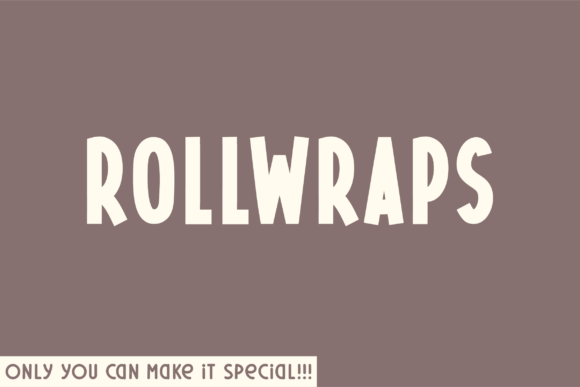
Embark on a typographic journey with Rollwraps, the captivating sans serif font that exudes individuality and charm. Crafted by the talented Hanna Bie, Rollwraps is not just another font; it's an artistic expression that transforms your designs into captivating masterpieces.
Unleash your creativity with Rollwraps and let your words flow with elegance and style. Its natural curves and distinct character indentations create a harmonious balance, making it the perfect choice for those seeking a touch of uniqueness in their designs.
Dive into the world of quotes, notes, and product designs with Rollwraps as your trusted companion. Its versatility knows no bounds, allowing you to effortlessly elevate your projects with a touch of sophistication and charm. Let your imagination soar as you explore the endless possibilities that await you with this remarkable font.
Whether you're a seasoned designer or just starting your creative adventure, Rollwraps is your perfect guide. Its user-friendly nature makes it accessible to all, empowering you to transform your ideas into stunning realities.
Join the creative revolution and embrace the beauty of Rollwraps. Discover a world of typographic possibilities and unlock the true potential of your designs. Embrace the power of expression and let your words dance with grace and elegance.